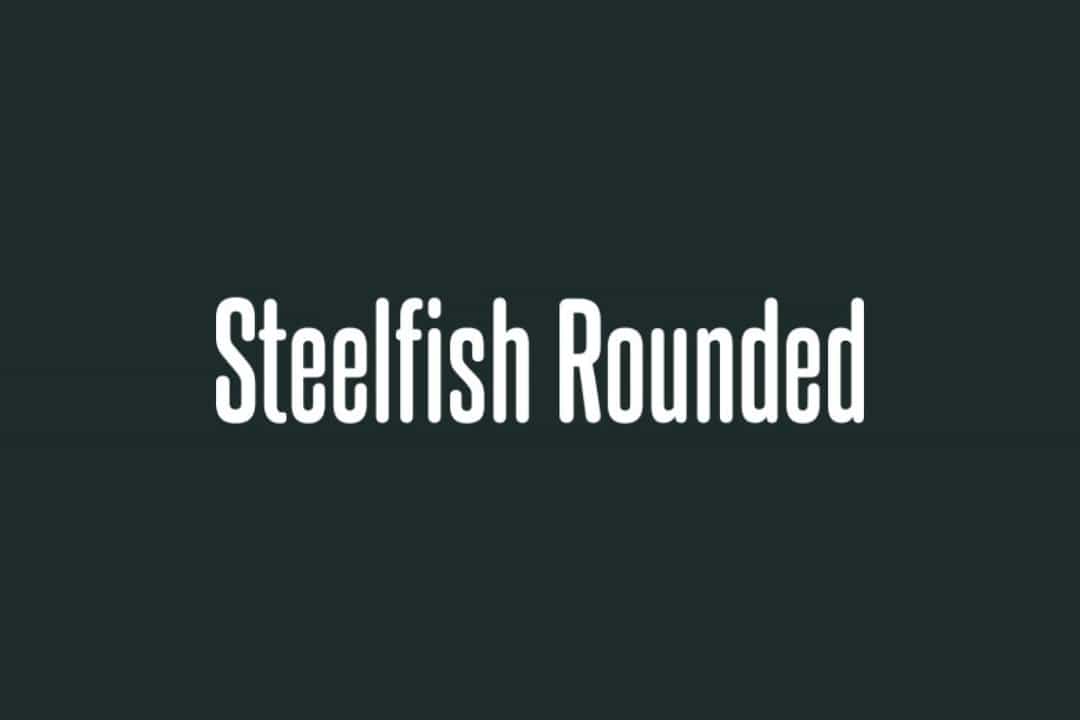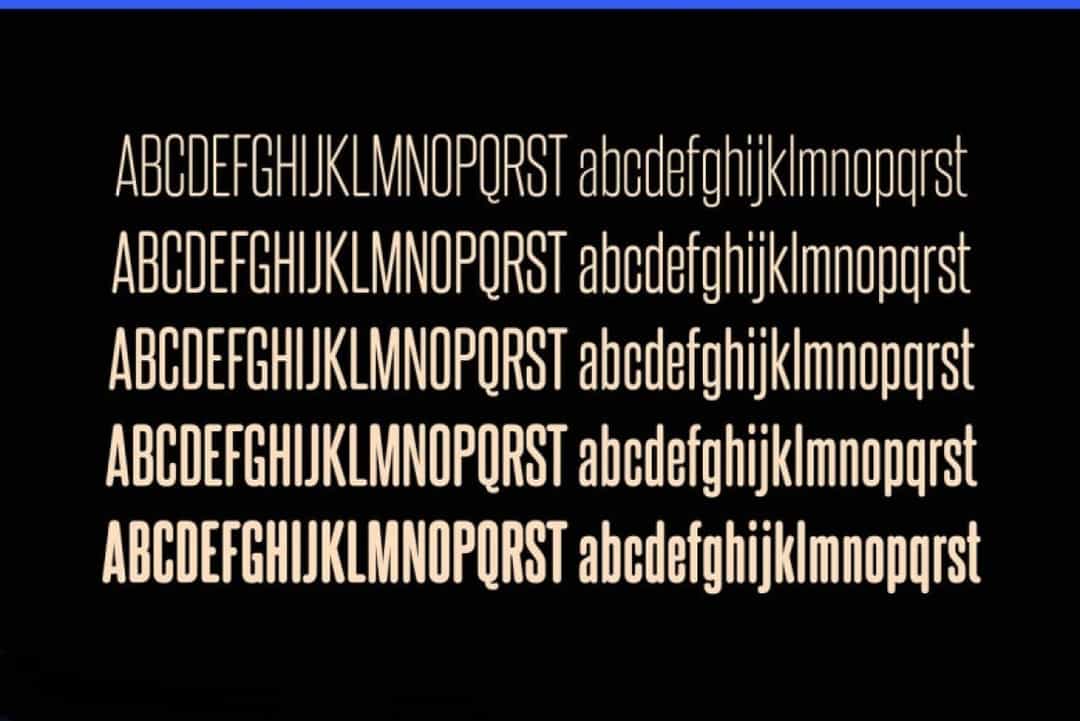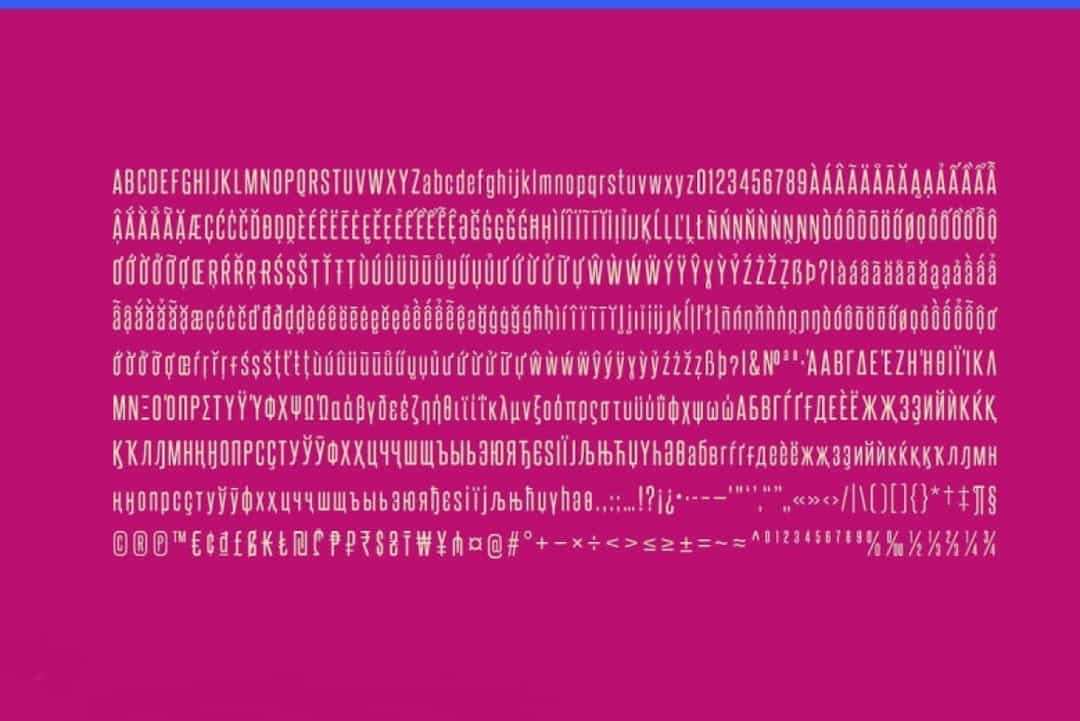
Steelfish rounded is a compact headliner with a new twist on the Steelfish font, it has light curves and soft edges to match the overall feel. It’s designed for optimum legibility. It expresses a relaxed and harmonious feeling which can be a part in today’s fast-moving world while remaining wholly appropriate for the most formal text. The Steelfish font stemmed from a simple number sequence.